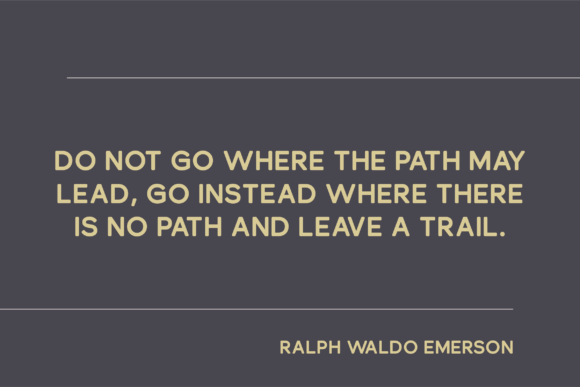
Snugglepup Font: The Ultimate Modern Sans Serif Typeface for Your Design Needs
In the world of typography, a good font can make all the difference in the success of a design project. Whether you’re working on a logo, wedding invitation, advertisement, or magazine, the right font can elevate your design and communicate your message effectively. Introducing Snugglepup, a modern, classy sans serif typeface that is perfect for a wide range of design applications.
Key Features of Snugglepup Font
- Uppercase Characters: Snugglepup font includes a full set of uppercase characters, perfect for headings, titles, and emphasis.
- Numbers 0-9: The font includes a standard set of numbers from 0 to 9, suitable for a variety of design projects.
- Punctuation and Symbols: Snugglepup font comes with a range of punctuation marks and symbols, ensuring you have everything you need to create professional-looking designs.
- Sans Serif Design: The clean, sans serif design of Snugglepup makes it highly legible and versatile, suitable for both digital and print applications.
Design Applications for Snugglepup Font
Snugglepup is an extremely versatile font, making it perfect for a wide range of design projects, including:
- Logos: Create professional and memorable logos with Snugglepup’s clean and modern design.
- Weddings and Invitations: Use Snugglepup to create beautiful wedding invitations, save-the-date cards, and other wedding-related designs.
- Quotes and Posters: Add a touch of elegance to your quotes and posters with Snugglepup’s classy sans serif design.
- Advertisements: Use Snugglepup to create eye-catching advertisements that communicate your message effectively.
- Print and Magazines: Snugglepup is perfect for use in print materials such as magazines, brochures, and flyers.
Typography Tips for Using Snugglepup Font
To get the most out of Snugglepup font, here are some typography tips to keep in mind:
- Pair with Other Fonts: Experiment with pairing Snugglepup with other fonts to create a unique and visually appealing design.
- Use Different Weights: Use different weights of Snugglepup to create visual hierarchy and emphasis in your design.
- Adjust Letter Spacing: Adjust the letter spacing to create a more open or closed look, depending on your design needs.
- Experiment with Colors: Experiment with different colors to find the perfect combination that complements your design.
The Benefits of Using Snugglepup Font
Snugglepup font offers a range of benefits, including:
- Improved Readability: Snugglepup’s clean and sans serif design makes it highly legible, even at small font sizes.
- Increased Versatility: Snugglepup is perfect for a wide range of design applications, from logos to magazines.
- Unique Design: Snugglepup’s modern and classy design sets it apart from other sans serif fonts.
In conclusion, Snugglepup font is a modern, classy sans serif typeface that is perfect for a wide range of design applications. With its clean design, versatility, and ease of use, Snugglepup is an excellent choice for designers looking to elevate their designs. Whether you’re working on a logo, wedding invitation, advertisement, or magazine, Snugglepup font is sure to impress.